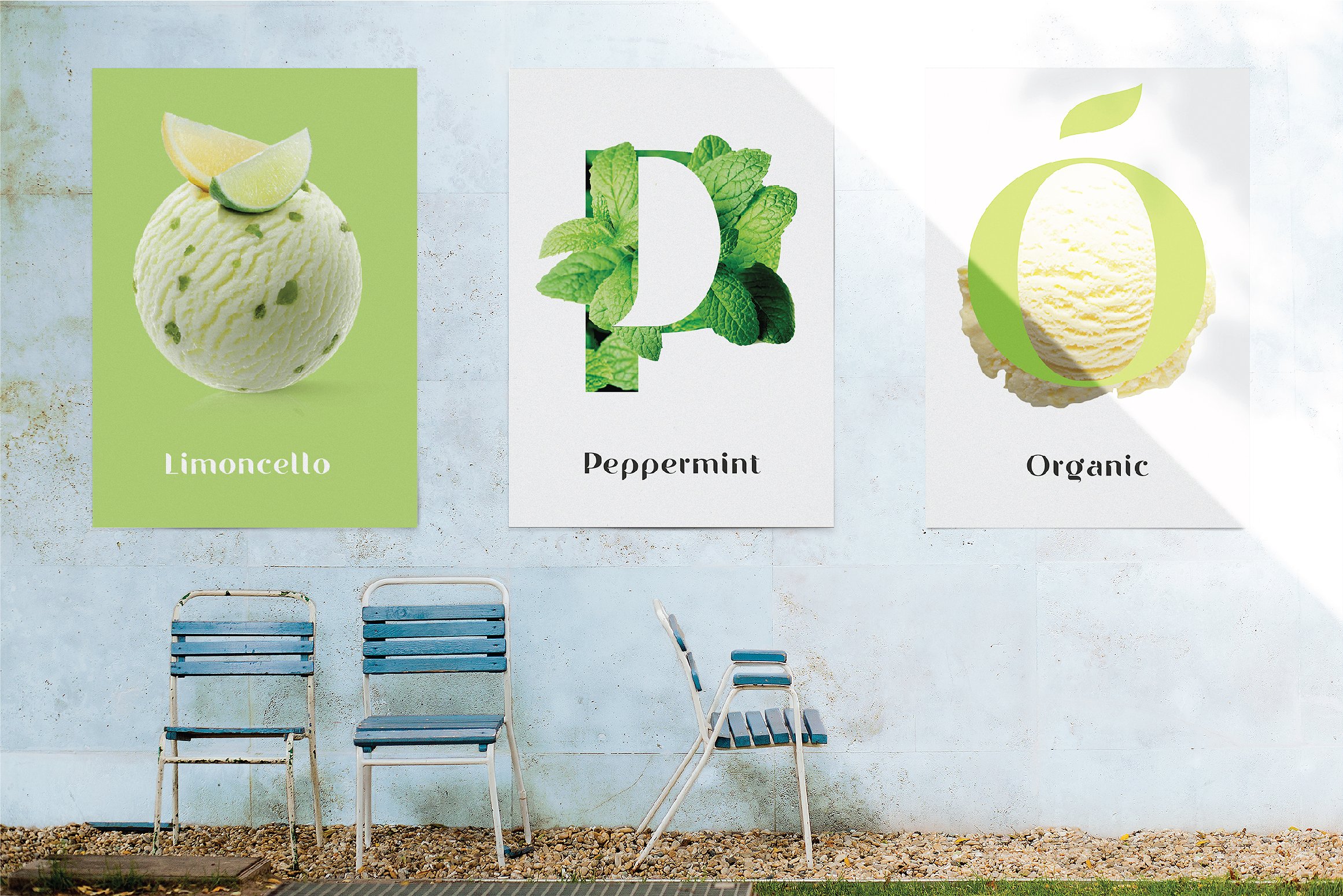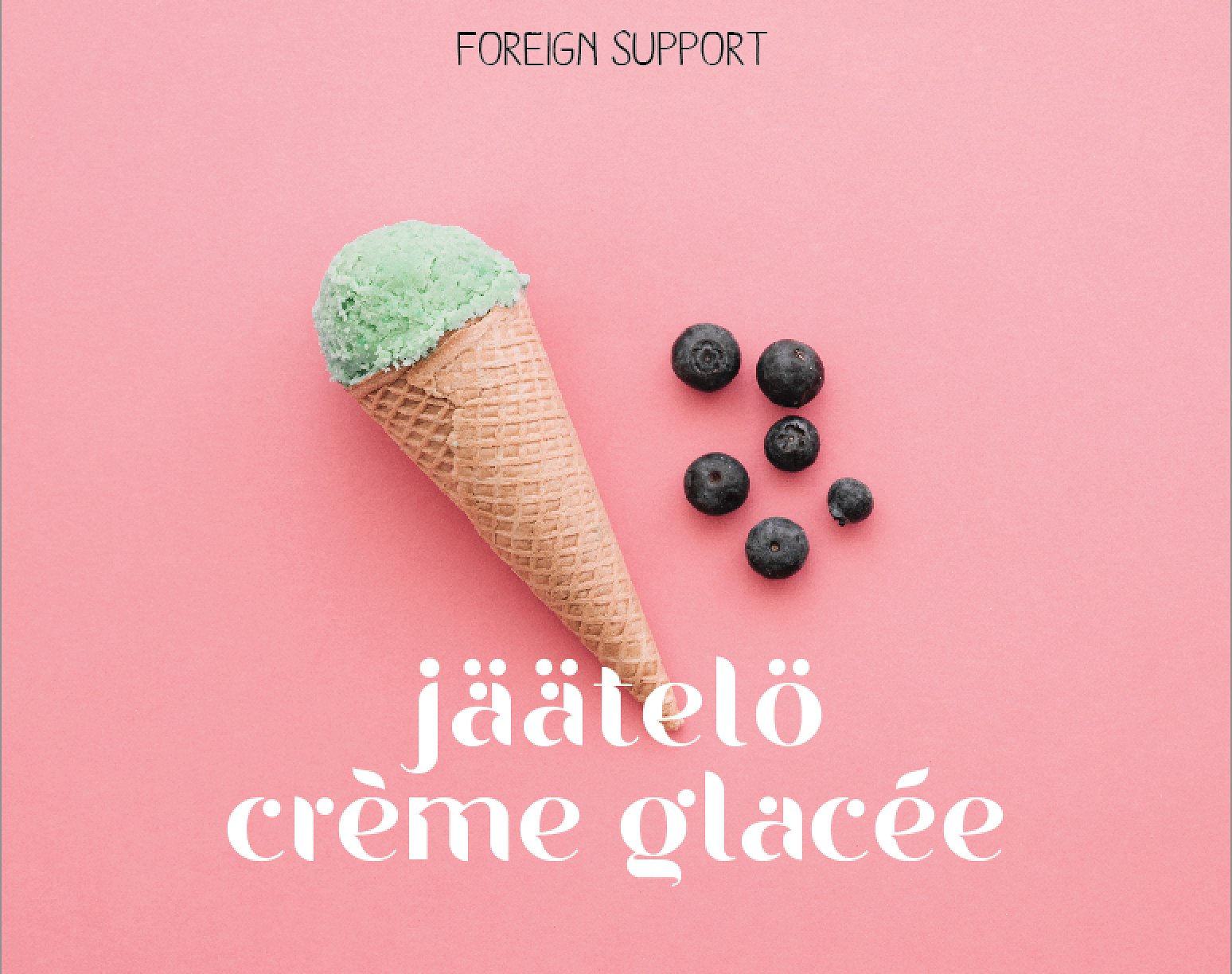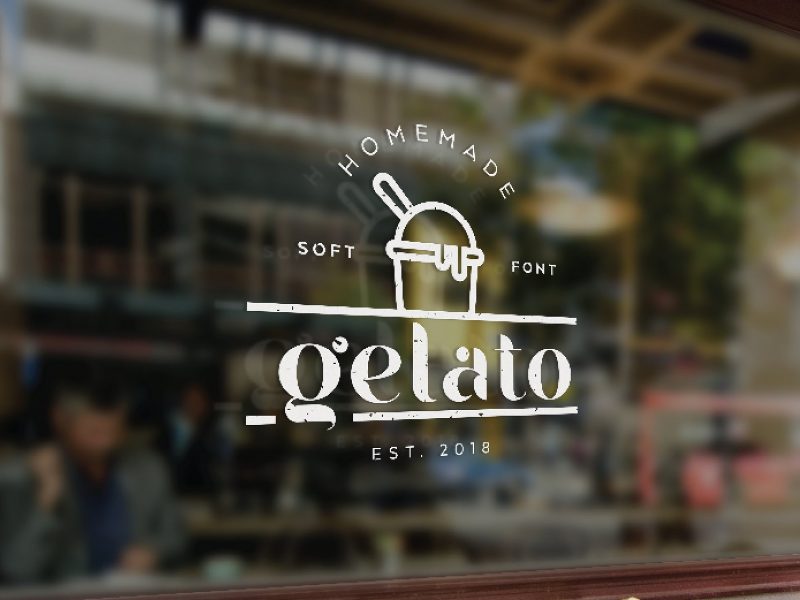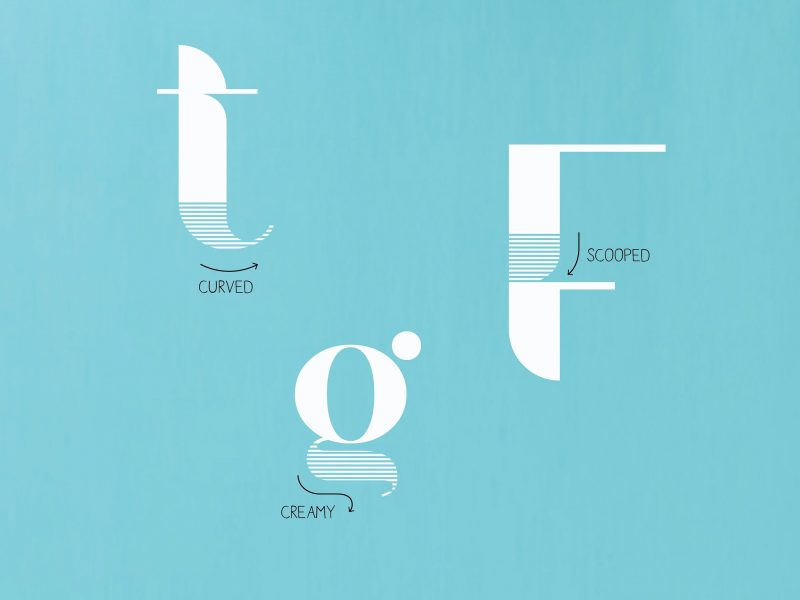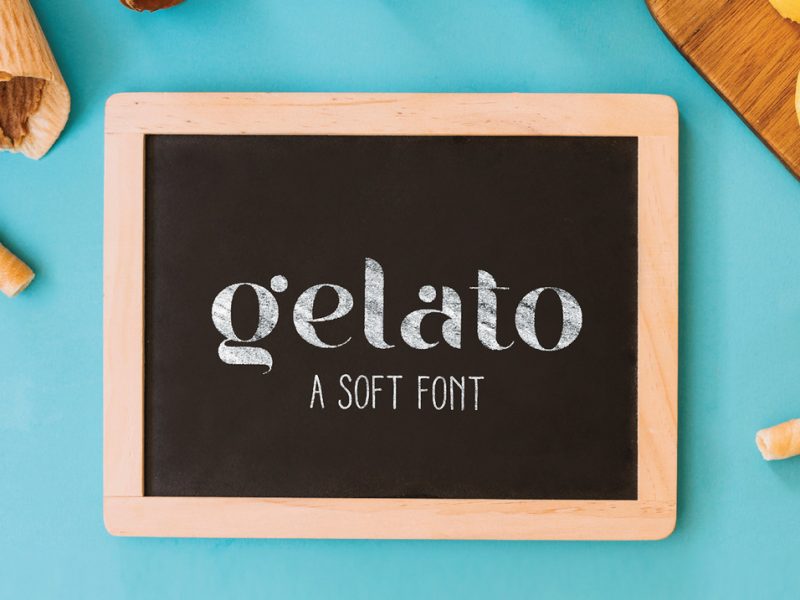
Gelato Soft Typeface
Introducing Gelato Soft. Soft, friendly and full of personality! Gelato Soft font created by Pedro Azedo. This is a unique font to work on various needs such as nameplate, party invitations, children’s other various purposes which lead to a warm and memorable atmosphere. Gelato Soft font is great for modern and retro style logos, badges, titling, posters, signboards and more.